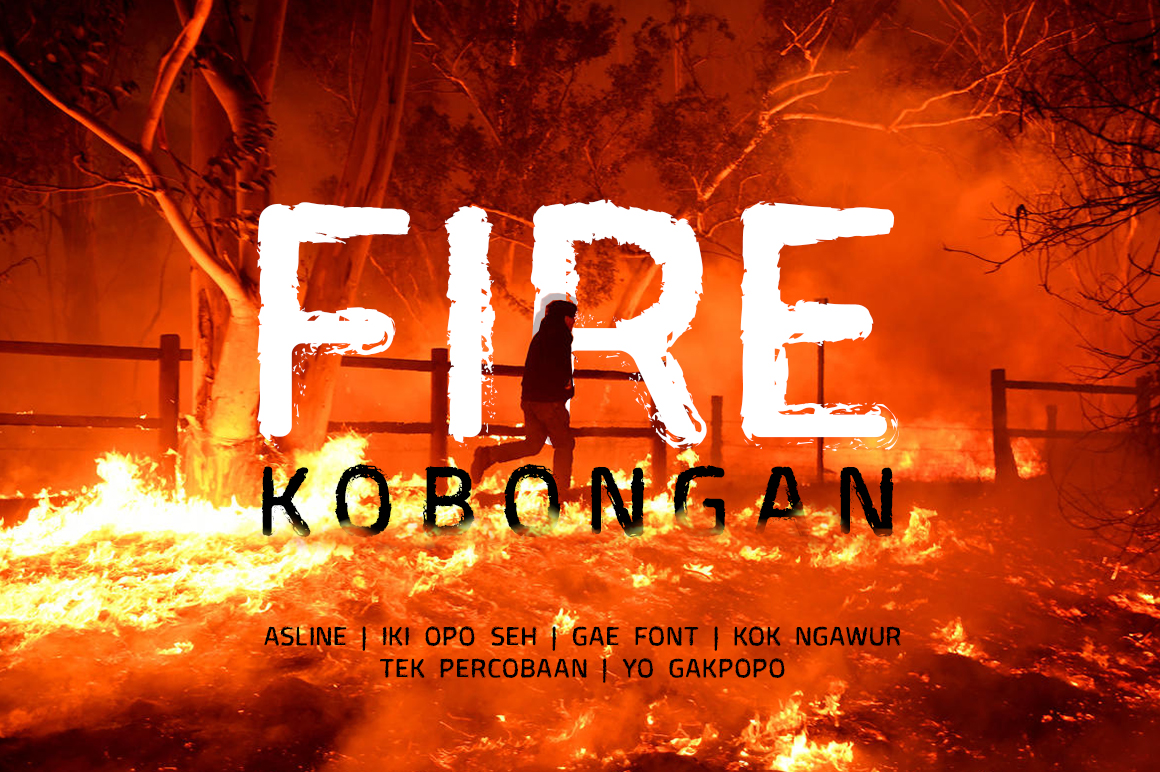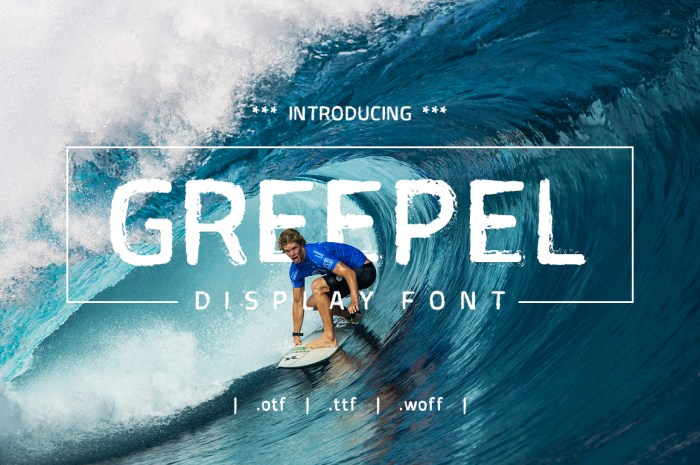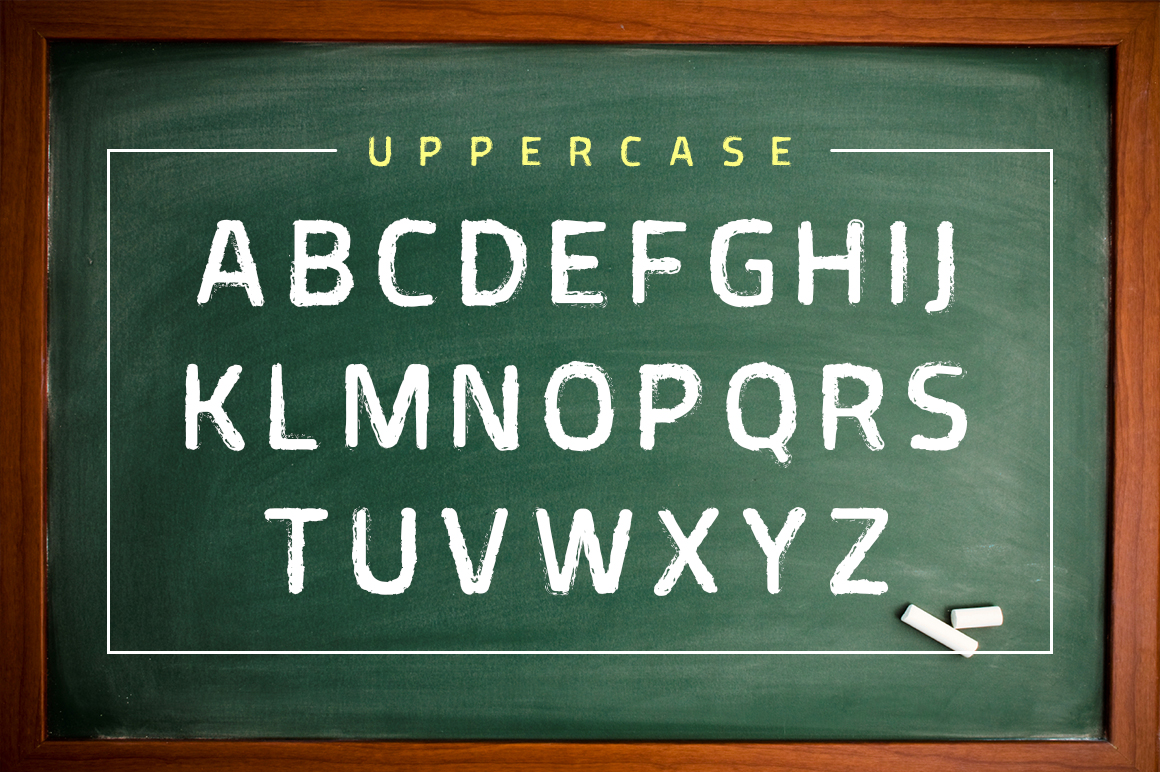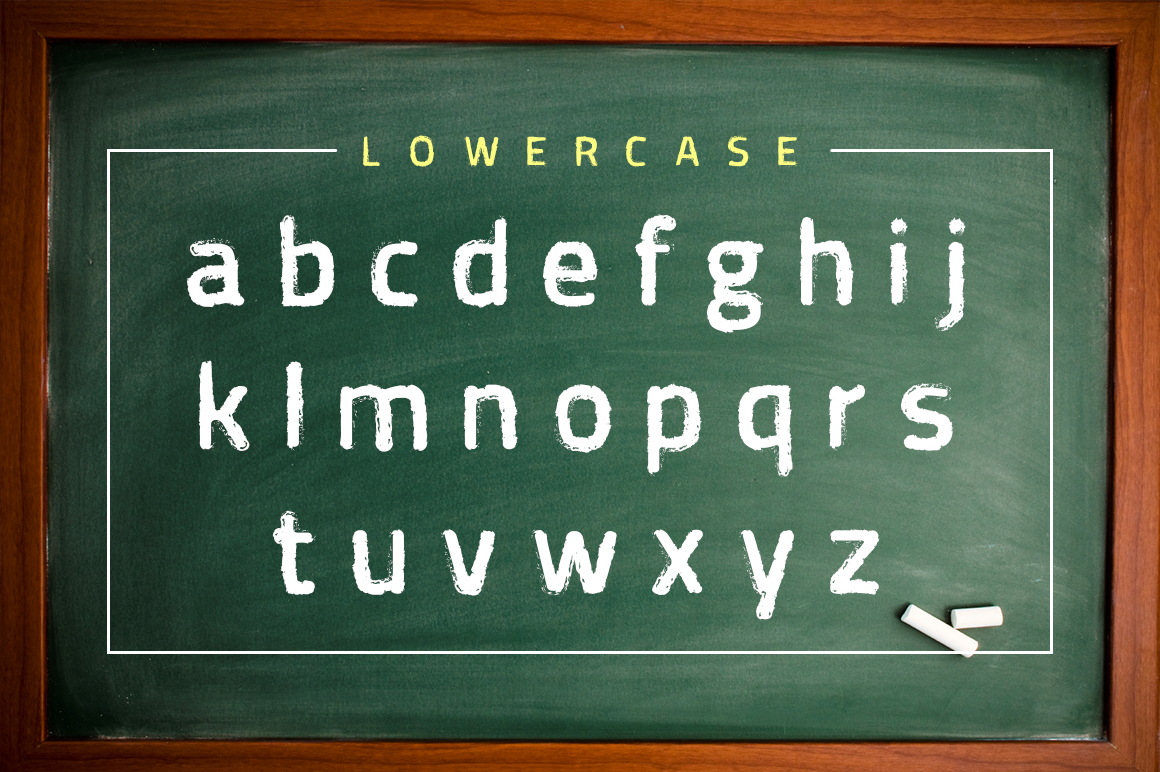
Greepel Grunge Font
Greepel is a surfing inspired style font. Very suitable for poster, for logo, music cover, clothing, and many many cool design projects. Greepel is uppercase and lowercas. Numeric and international font.